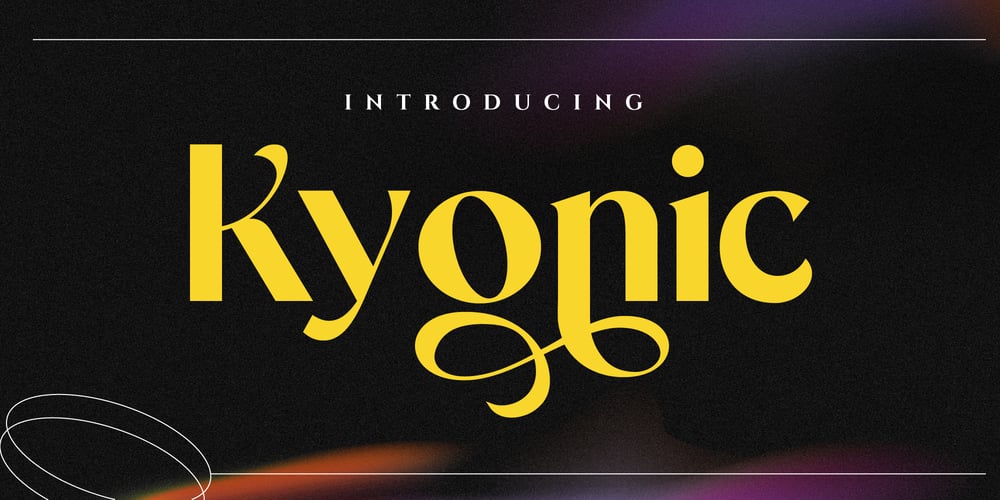
Kyonic Font Family was designed by panji nugroho and published by Storictype. Kyonic contains 1 styles and family package options. Kyomic is a serif fonts with a solid looks bold and also beautiful curves in an alternate characters. A style that we choose as a Natural looks of the Hand-Drawn made Athans as a unique identity of this fonts. Kyomic also comes with alternative characters that carefully created for adding a minimalist decor of the letters. and it looks right on every character’s we’ve made. Stylistic alternates allows versatile design options and works perfectly for Headlines, Posters, Logos Packaging, Branding, T-shirts, Greetings, Persentation and much more.